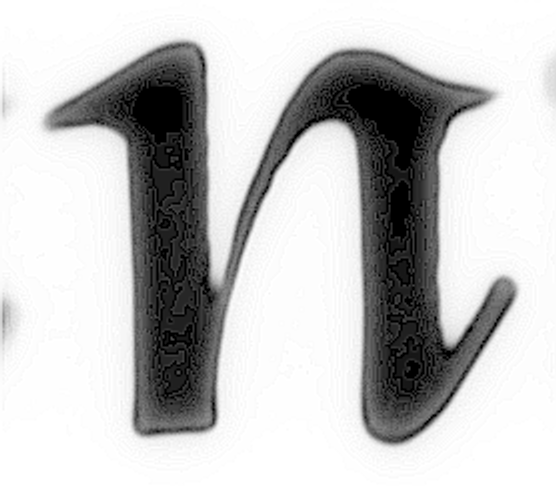
I picked up a copy of "Origines de L'Imprimerie En France" (Arthur Christian, 1905) a couple weeks ago, and among its many delights was a font with the following attribution: Cette premi
Yes, if you could scan the page(s) from the Imprimerie specimen book, that would be great. I’m working from the 16pt from the “Debuts de L’Imprimerie en France” book mentioned above (have no idea how I mistranscribed it as “Origines”). It has a fairly complete set of sorts, but is missing miniscule w and magiscule X (or, possibly, I overlooked their occurrences).
Also, if people are really curious to see my work-in-progress, ask and I’ll post. I’m kinda excited about this one.
It’s 600dpi, and cleaned up -carefully- to reduce filesize & get rid of the stuff on the back of the page. This is (almost) the best I could do - the repro in the book isn’t so hot.
> have no idea how I mistranscribed it as “Origines”
Well, that is the title of a predecessor to the 1905 edition...
So you’re doing a literal revival? Like you’re not going to improve that “g”? It looks like a “y” that’s a bit too happy to see its righthand glyph...
Thanks. I was hoping it was a more complete showing, but at having all the sizes is helpful. I see that what they have listed as a “14” is what I’ve measured as 16. Sigh, one of these days I’ll actually learn to measure ancient sizes.
So you’re doing a literal revival? Like you’re not going to improve that “g”?
What I’ve drawn so far is quite literal, but I do plan on improving some of the glyphs. The cap “T”, for example, reads too much like an “E”. I’m not yet convinced I need to redo the “g”, though. It’s perfectly legible, and is a very distinctive feature of the font. It’s also historically grounded, having the same shape as in Collard Mansion’s 1484 Ovid Metamorphoses (arguably a more direct influence on this font than Gutenberg; in particular, the final letter variations are almost a direct match). [plate 22 in Morison and Day]
> one of these days I’ll actually learn to measure ancient sizes.
1) I don’t think there’s a reliable way anyway. The talus (internal leading) can be anything, even negative, like if there’s kerns at the bottom of the descenders of a script face - and it doesn’t even have to be a script face: I remember seeing smaller sizes of some Baskerville with a “g” that extended below the Em! (Or maybe it was Palatino.)
2) Don’t forget to account for Didot versus Postscript points.
> What would you suggest bastardizing it to?
I’d just make the top of the “g” more integral, not so slapped on. But only if it’s not a literal revival... in which case I might not stop at the “g”.
This is a dodgy face — it’s a dog’s breakfast with colour issues.
The way it is here, the designer probably figured he had a good balance of disparate elements (“goth remix”, as Hrant put it), so normalizing problem characters kind of defeats the whole purpose of the font.
Raph, why not do your own remix from a selection of old fonts?
Nick: can I quote you in the marketing materials for the font? More seriously, I’m digitizing this because I think it makes an interesting statement, and given the resurgence in blackletter faces, I think it may well find niches in certain designs. I find it more readable than most blackletters, good enough for medium-length runs of text.
hrant (re size): yes, the talus of this font is especially confusing because the cap “V” has an ascender that vastly exceeds the normal ascent, so much so that it could almost collide with the previous line’s descender. Indeed, in one of the larger sizes (I think 16/18 but haven’t measured it carefully) you get the feeling that the compositor adjusted the line breaks to avoid just such a collision.
andigrl: actually, in the clip I posted, all the “s” glyphs happen to be final, so you’re seeing only that form of teh letter. The other form is far more standard. I’ll post three images of it here for your your amusement.
First, a raw scan (normalized for contrast) of one instance. This is a 2400 dpi scan, so it’s about 467 ppem. The printing quality is fairly good for 100-year old letterpress, but of course you can see plenty of paper texture and a bit of uneven ink spread.
Second, I averaged together dozens of instances to form a composite image. I believe this image reveals very nearly the true shape of the metal. You can see a slight lightening of the interior of the letter on corners, indicating that some instances are chipped. This lightening always happens on fragile parts of letters, and the degree of lightening corresponds to the probability of damage. Similarly, the zone of ink spread is a light-gray blur emanating from the body of the letter.
Last, my digitization. You can see that I followed the original shape quite literally, even to the point of different rounding radii for the different corners. I may want to replace some of these rounded corners with sharp ones, but I also don’t want to change the character of the font too much. In particular, at large sizes I find a mixture of soft and sharp corners to be unappealing.
>the textbook struggle between Art and Design, between expression and function, between the self and others.
I wish you’d stop laying this “art/expression/selfish” trip on me. I’m assessing the technical aspects of this font, and Raph’s averaging technique, from my experience as a type designer/craftsman, making fonts that I sell for a living, which the people who buy use to set type. The dichotomy that interests me is between handcraft and automation, and where the boundary falls.